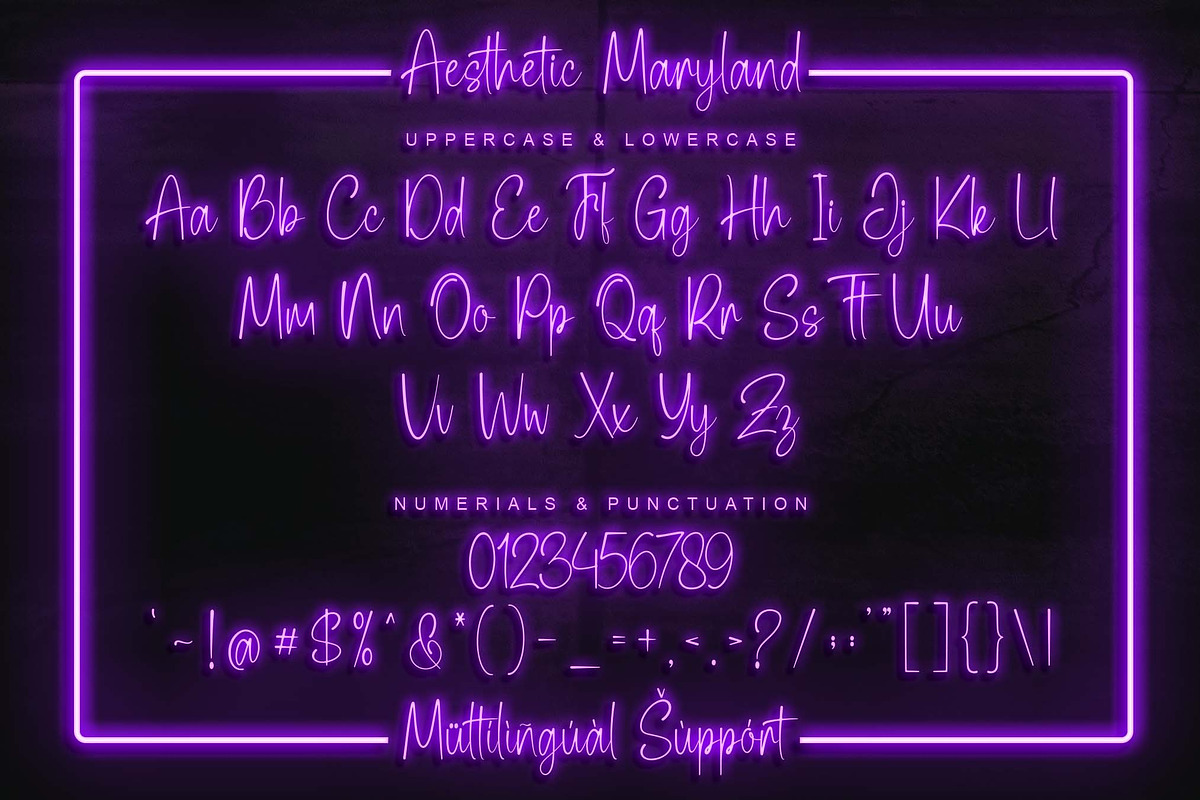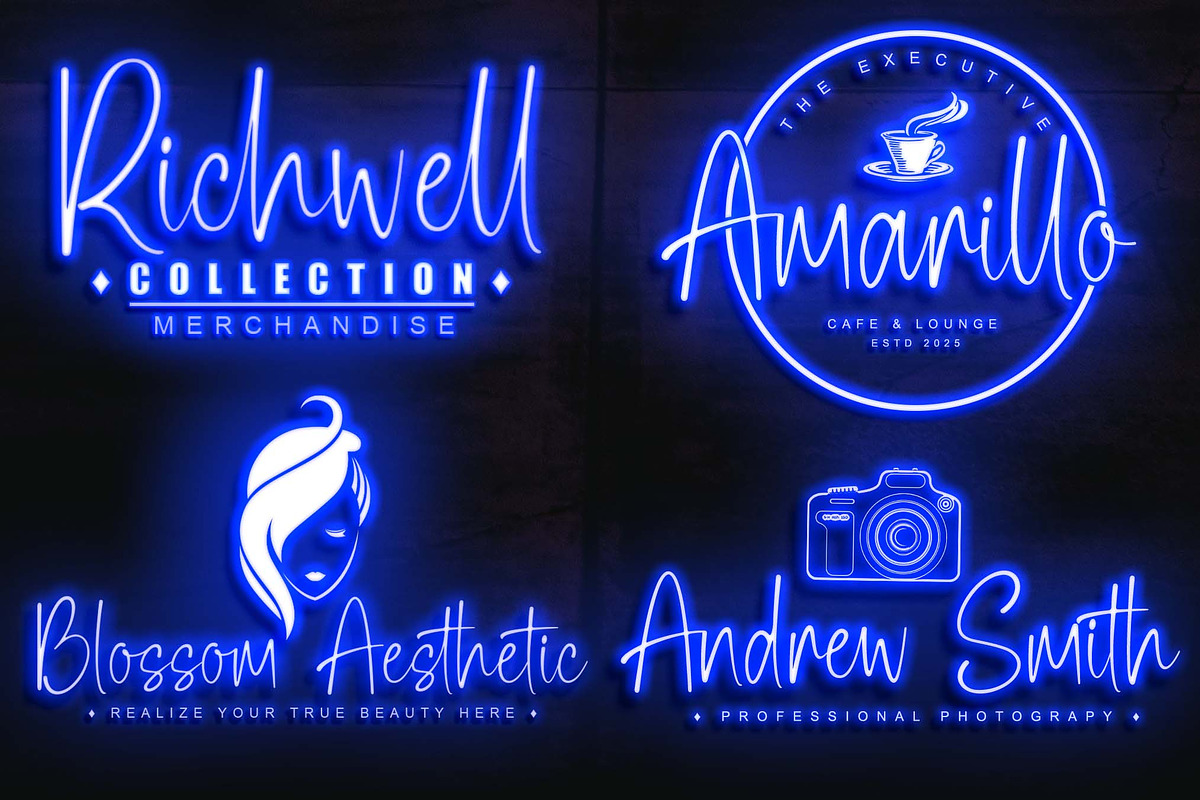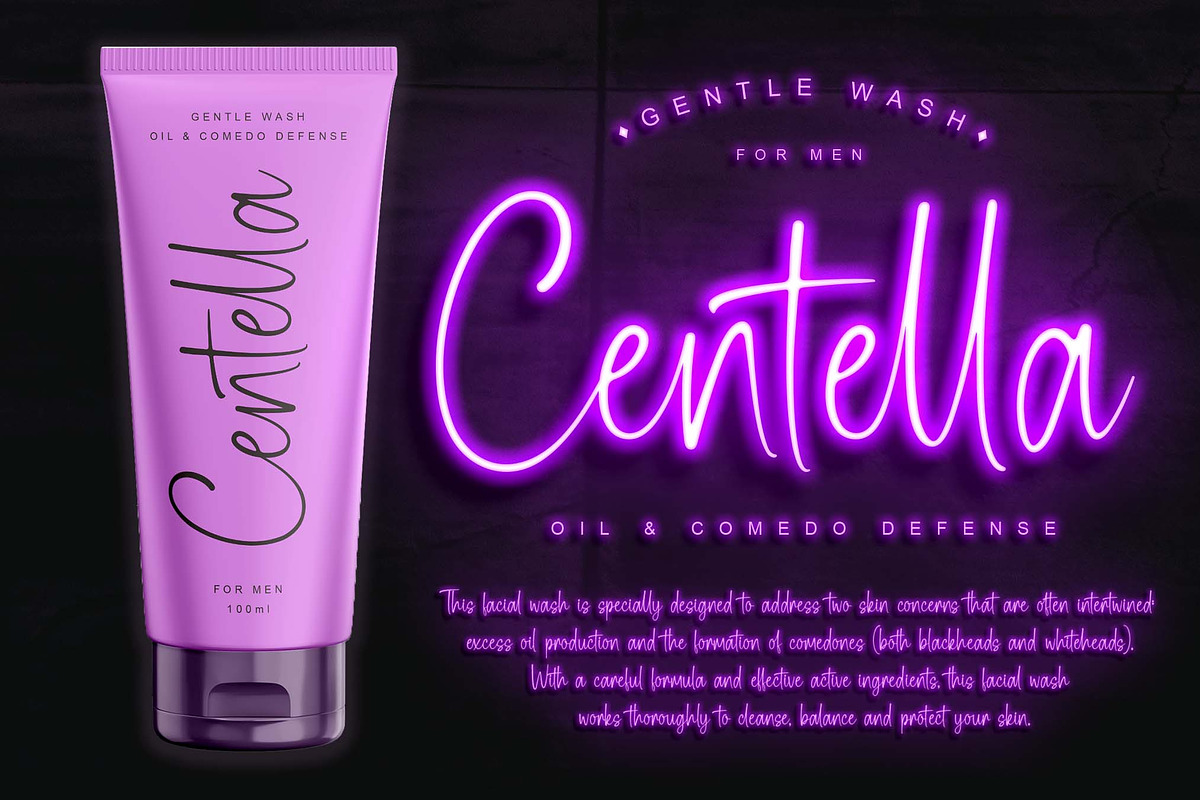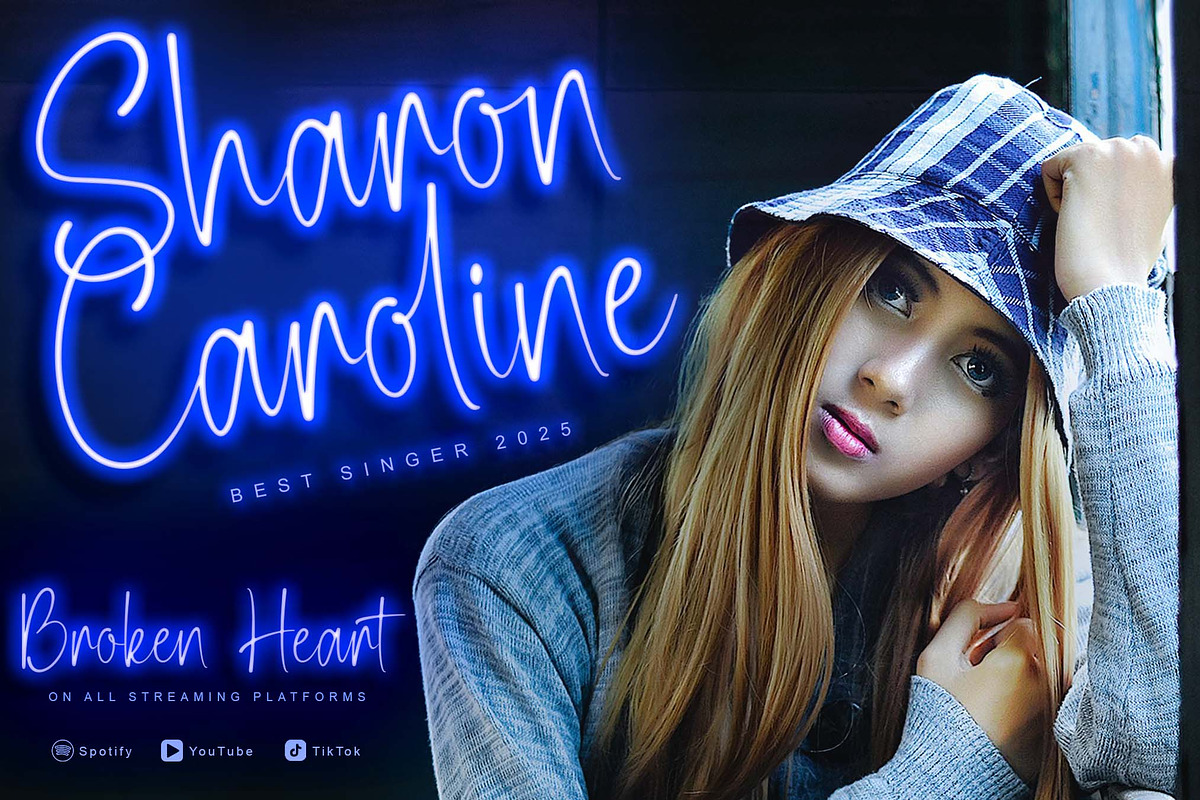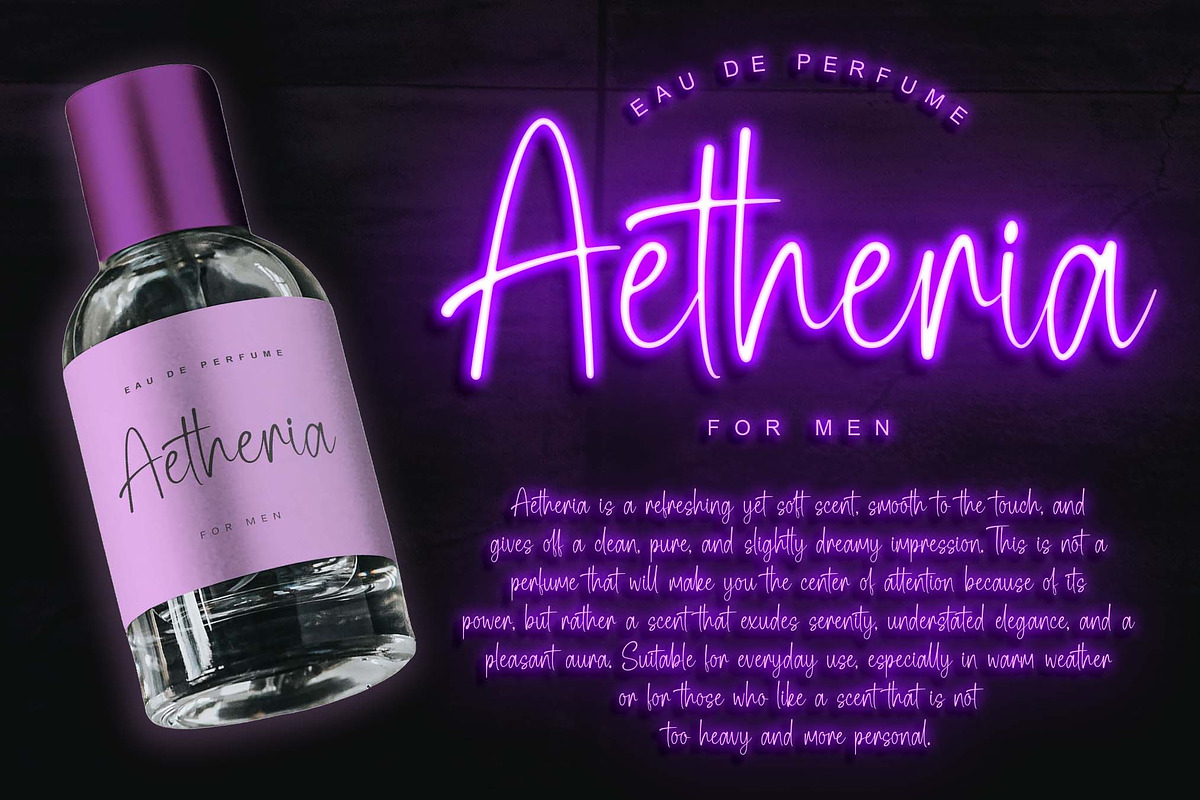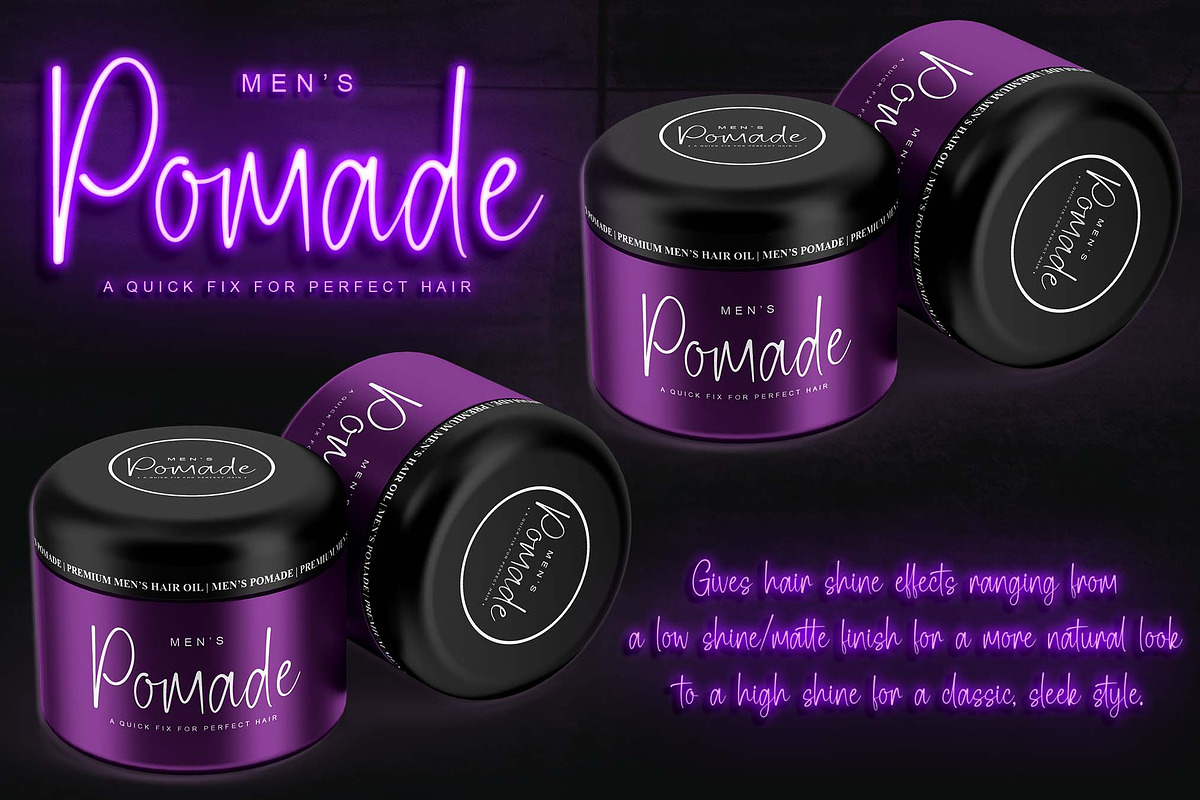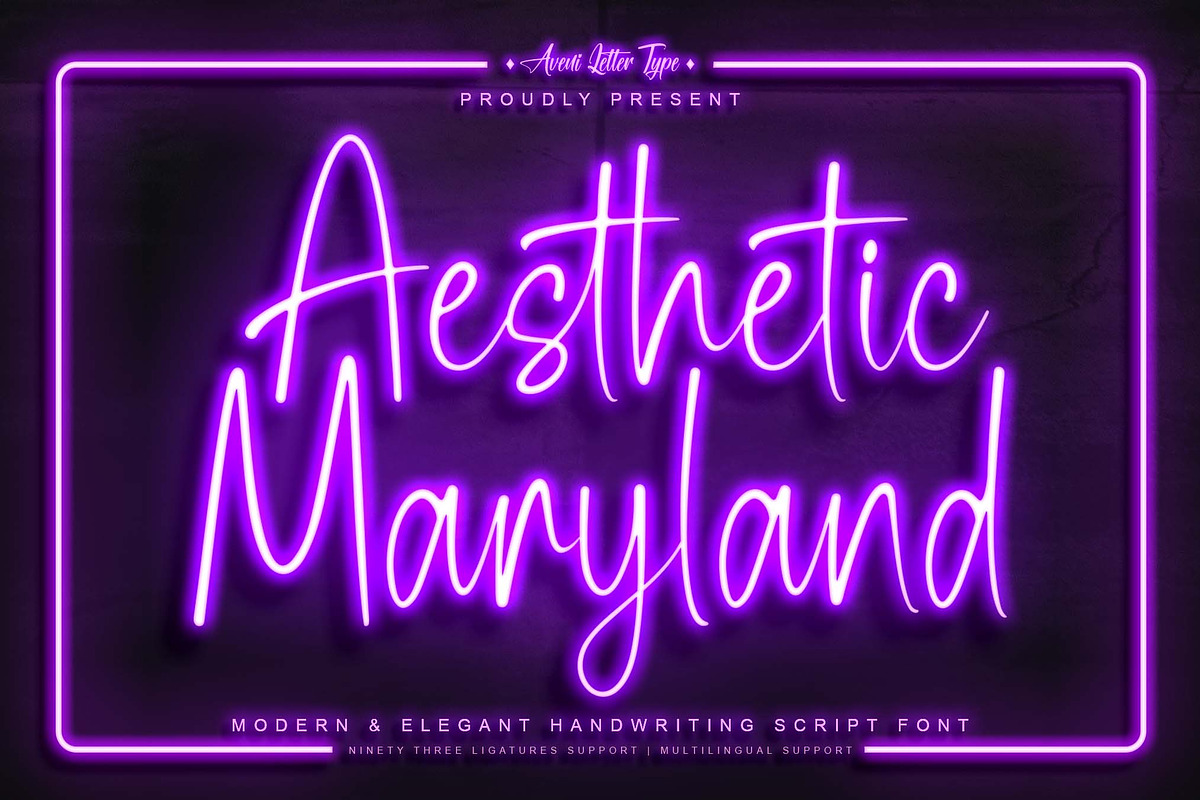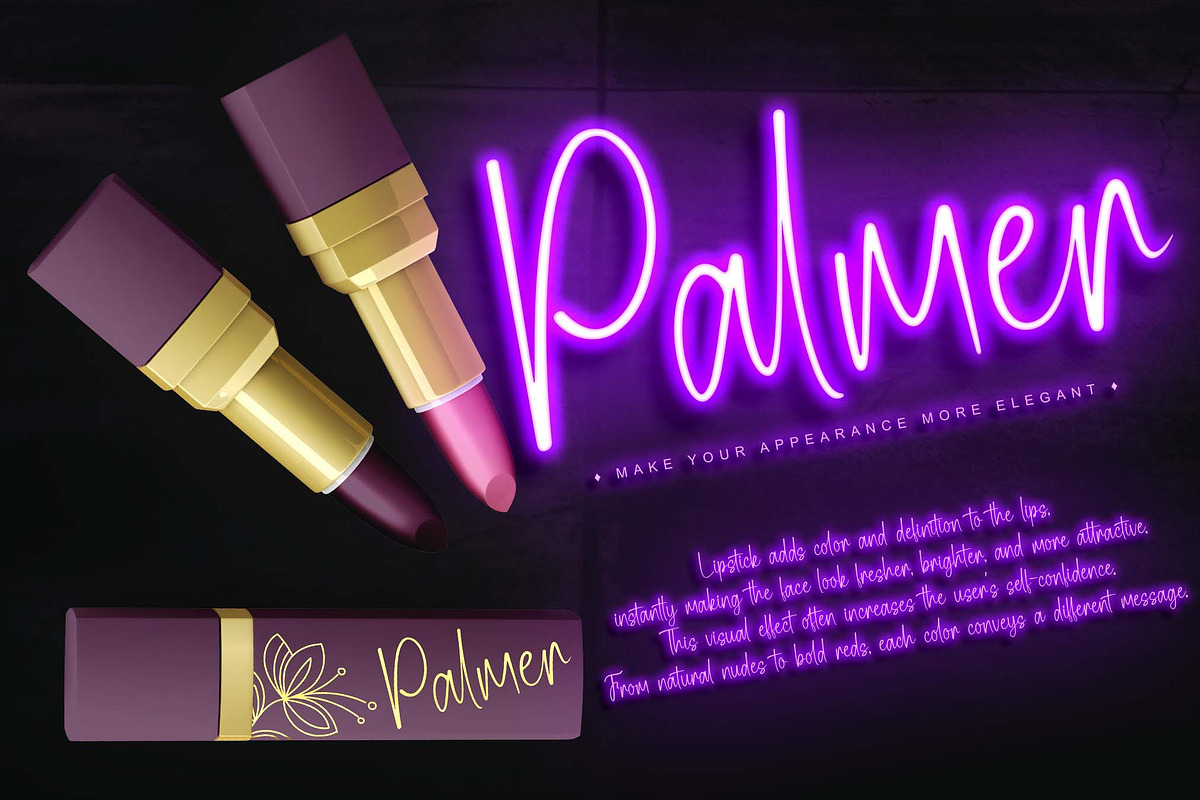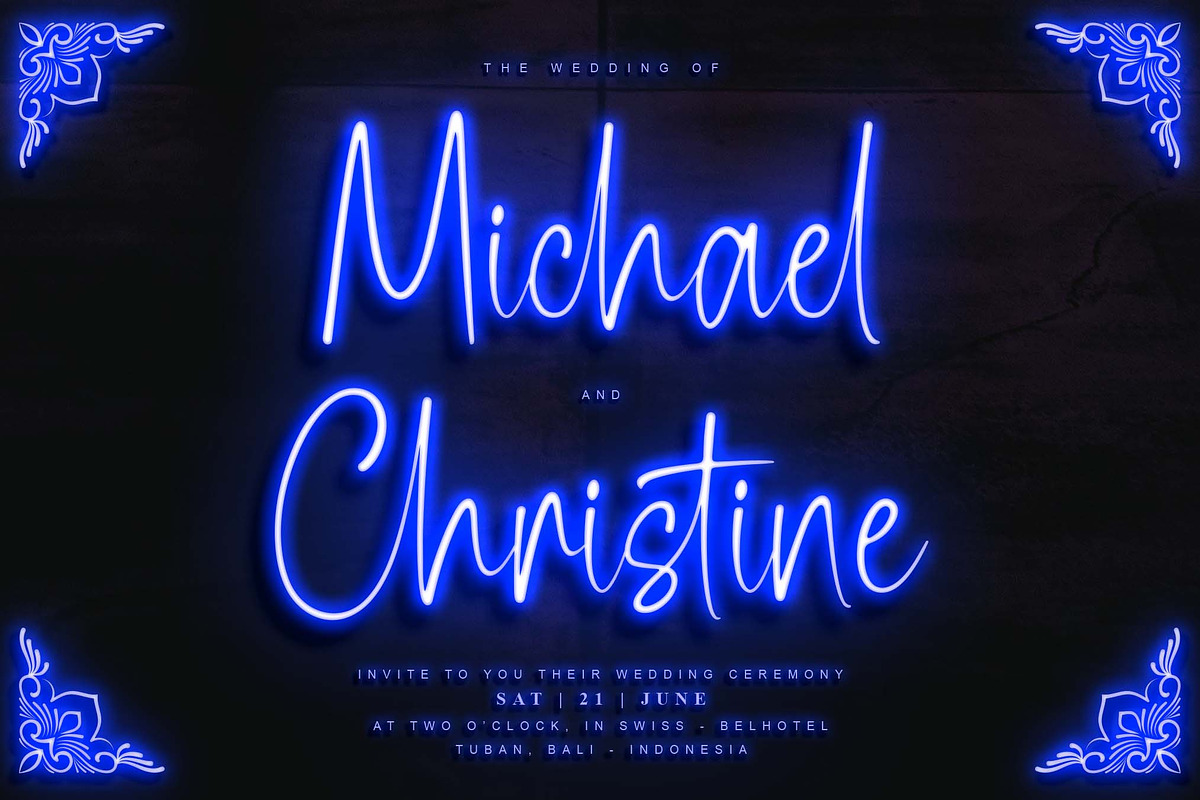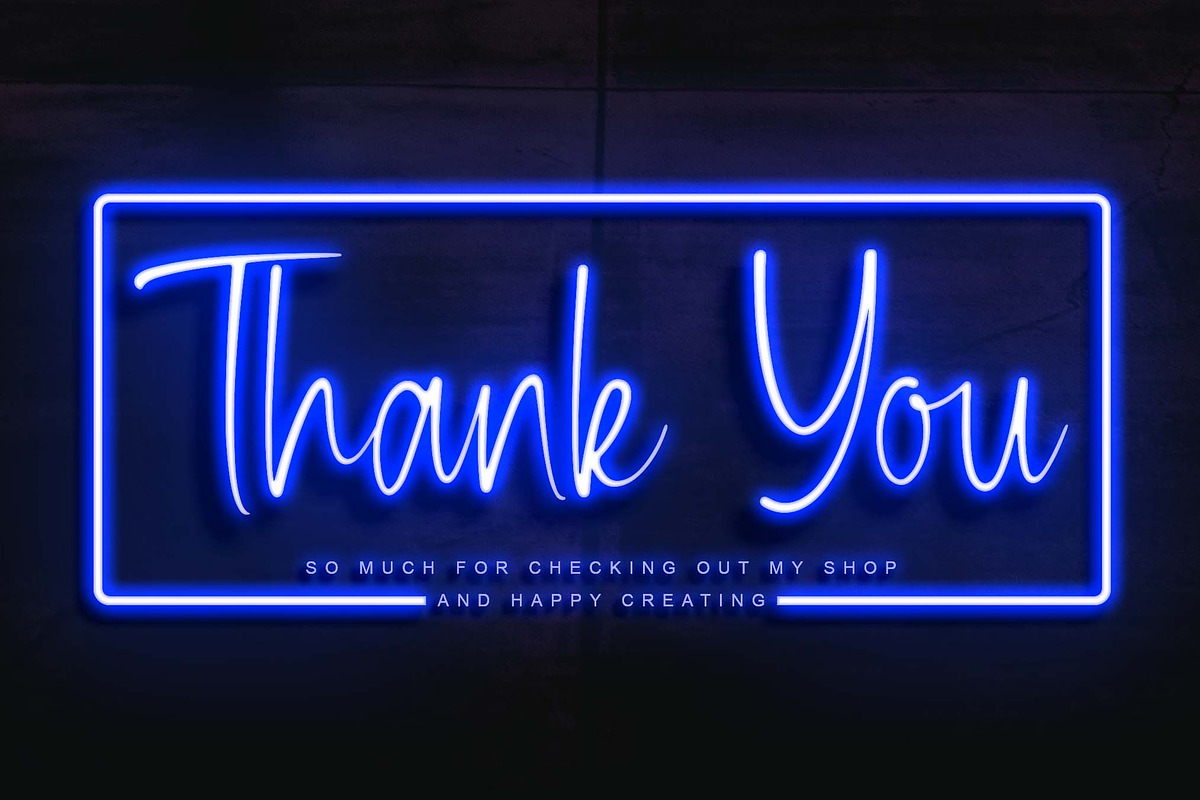
Aesthetic Maryland | Handwritten
Hello Ladies & Gentlemen, Introducing this is the Aesthetic Maryland Font, this font has ninety-three ligatures that add a touch of luxury and elegance to the project you are working on. This Aesthetic Maryland Font has been kerned very neatly, so it can make it easier for you to use this font.
Of course, this Aesthetic Maryland Font is very Instagrammable, so it is very suitable for use in many projects that you are working on, such as for company branding, logotypes, product branding, wedding invitations, business cards, your business nameplate, letterheads, and many more, of course.
Font Feature :
- Ligature and Multilingual